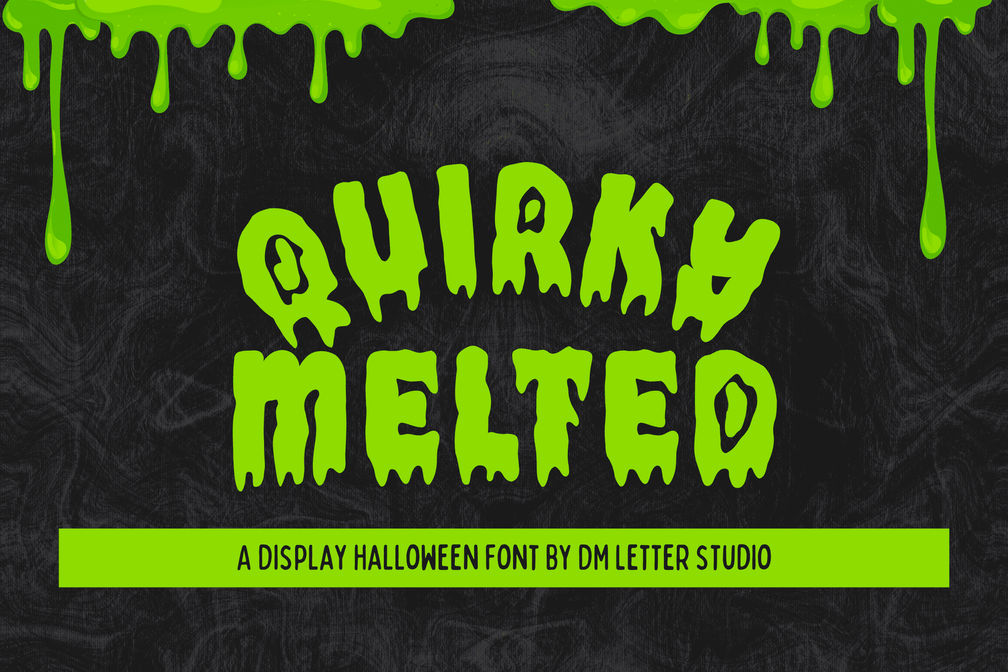
Quirky Melted
Quirky Melted – Playful & Drippy Display Font
Quirky Melted is a fun and slightly spooky display font with gooey, melting letterforms. This font adds a lighthearted twist to eerie designs, making it perfect for Halloween events, creepy-cute branding, kids’ spooky crafts, and playful seasonal packaging. Its quirky drip style strikes a balance between fun and fright.
• Drippy, Melting Design: Unique letter shapes with a gooey, liquid-inspired aesthetic.
• Perfect for Halloween & Spooky Projects: Great for haunted house flyers, themed treats, or party invites.
• Playfully Creepy Vibe: Adds both character and charm to spooky designs.
• Complete Character Set: Uppercase, lowercase, numbers, punctuation, and multilingual support.